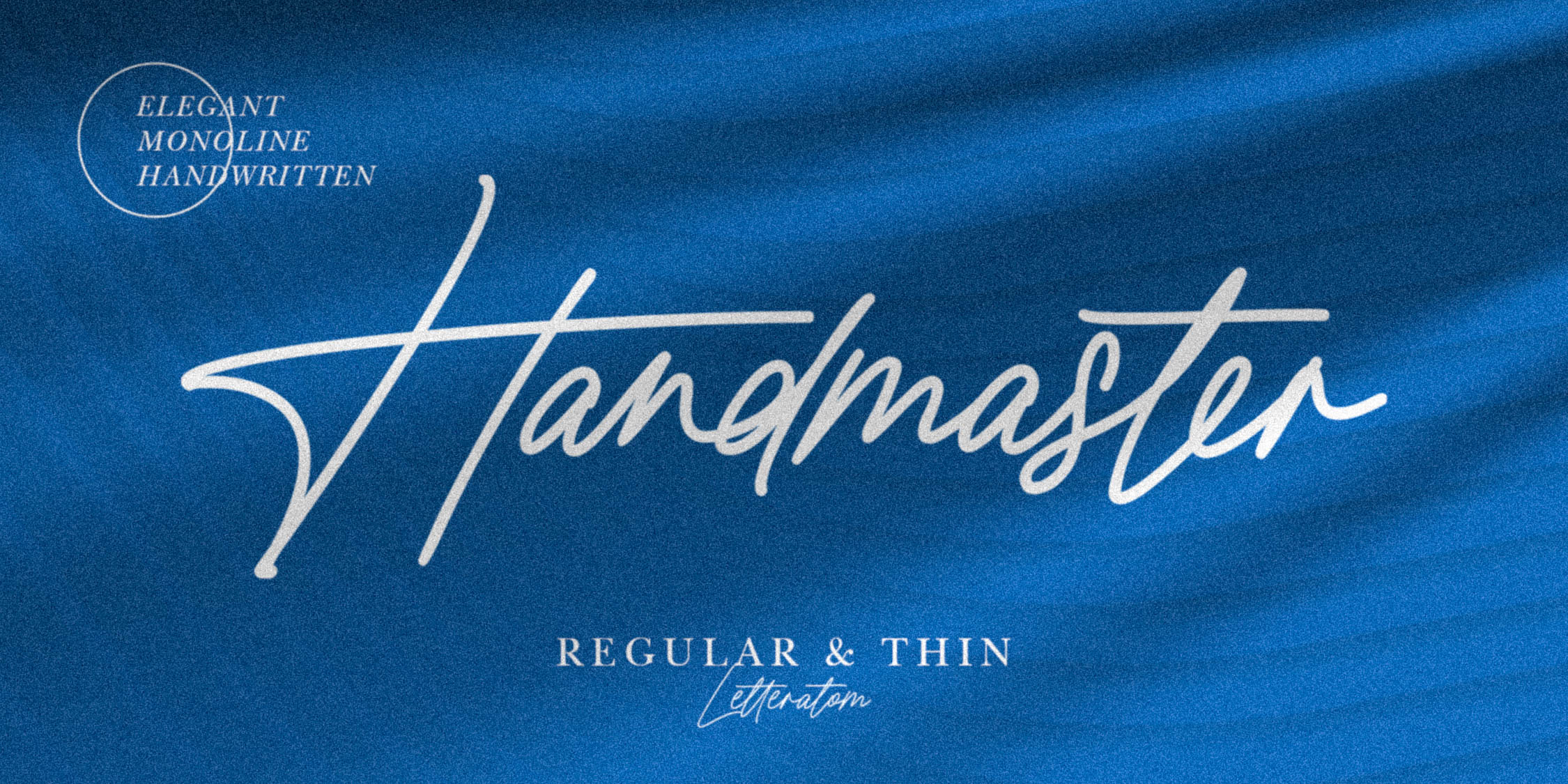
Handmaster Font excels in artisan workshop branding, skilled craftsman signage, traditional handcraft materials, master artisan certificates, handmade product packaging, craft guild presentations, artisanal skill demonstrations, and authentic craftsmanship celebrations. Its masterful character makes it perfect for projects honoring skilled trades and traditional craftsmanship excellence.
What makes Handmaster Font exciting is its exceptional ability to embody the precision and expertise of master craftsmen through expertly constructed letterforms that reflect years of dedicated skill development and artisanal mastery. The skilled construction features confident strokes with craftsman precision that captures the essence of traditional expertise and manual excellence. This typeface embodies artisan mastery and skilled craftsmanship, making every design feel professionally crafted and authentically masterful.
Handmaster Font family includes Regular, Bold, Light, Italic, Craft, and Master variations, offering designers comprehensive tools for creating distinguished craftsmanship-inspired typographic compositions that celebrate traditional skills and artisan excellence.
Master exceptional design with the skilled expertise of Handmaster Font Free Download. This accomplished typeface brings artisan mastery to any creative project, whether you're developing brand identities for skilled trades, crafting promotional materials for craft organizations, or designing graphics for traditional artisans. The font's craftsman-inspired architecture and masterful presence make it essential for projects requiring authentic skill appeal. Handmaster Font perfectly captures the essence of traditional craftsmanship while ensuring optimal readability across all artisan applications. Its expert character forms and skill-inspired design language make it ideal for brands seeking to communicate professional expertise and traditional mastery, delivering memorable results that resonate with audiences who appreciate skilled craftsmanship, traditional trades, and the dedicated mastery that transforms raw materials into beautiful creations through years of practice and unwavering commitment to excellence.